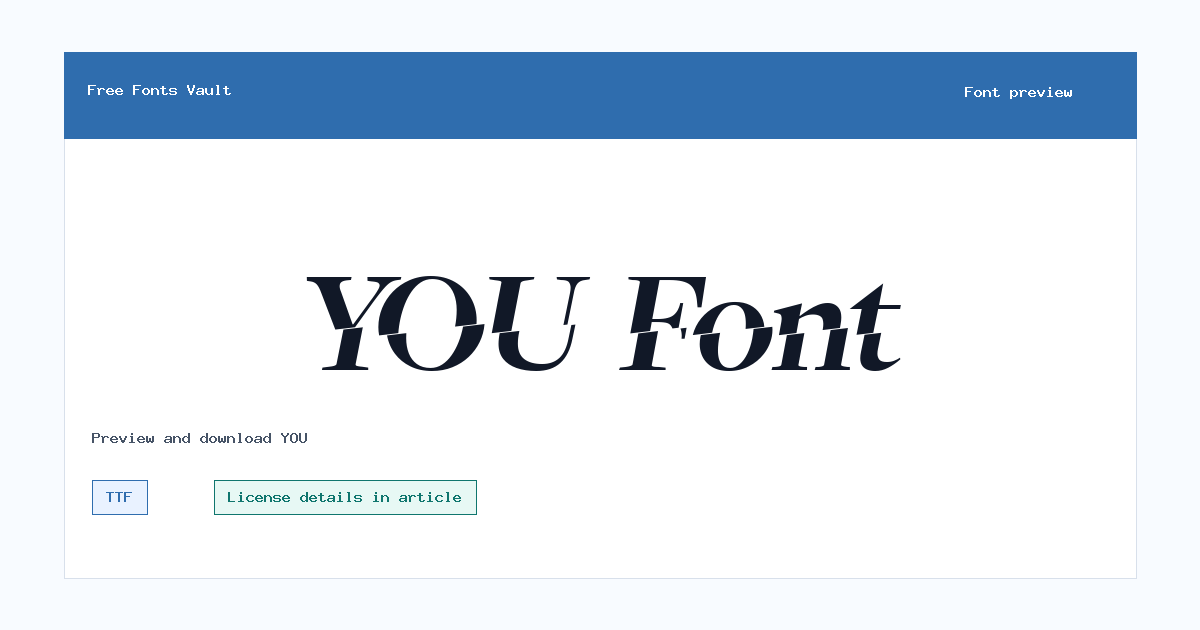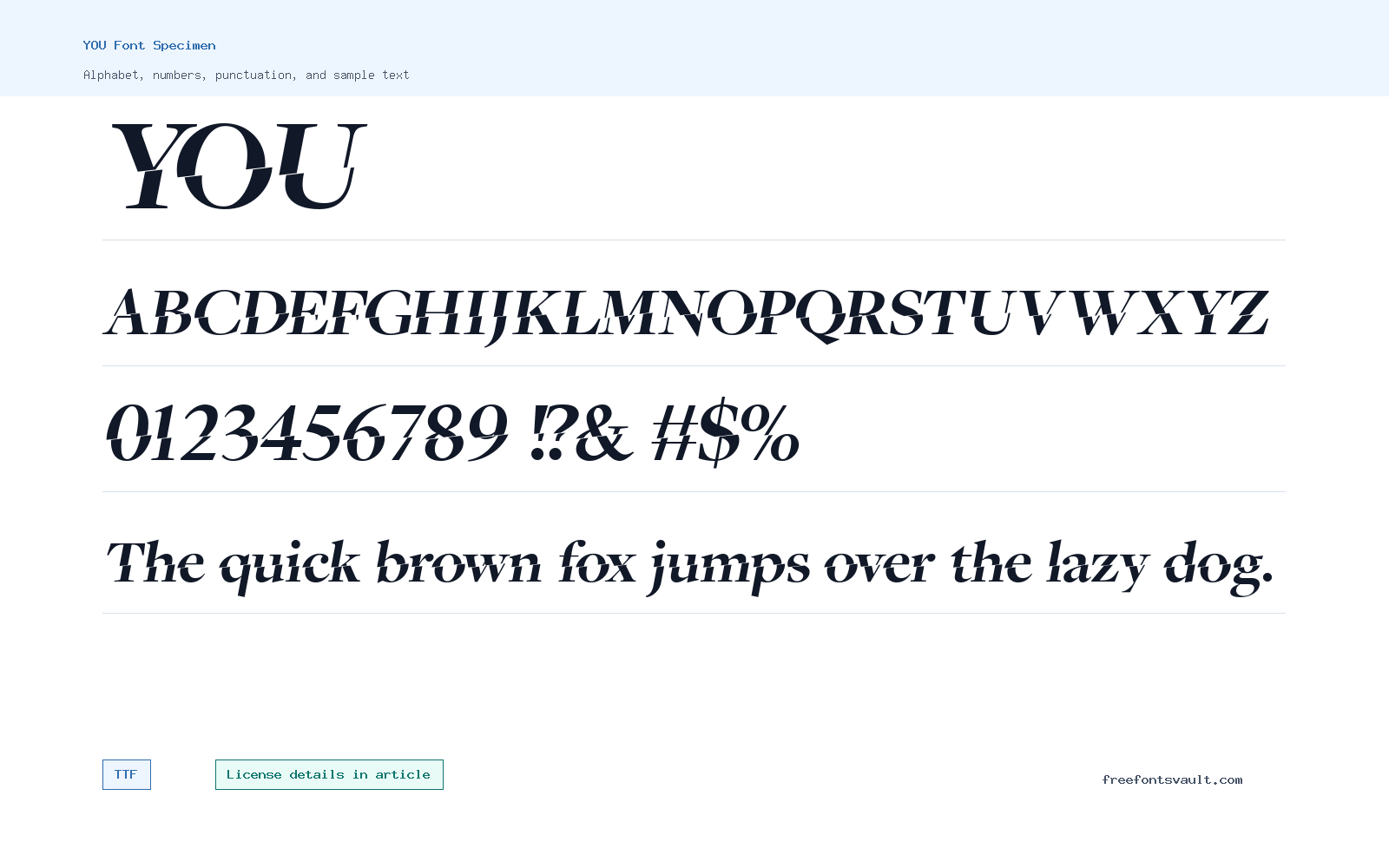
YOU
YOU font.
YOU is a single-style TTF font listed with a regular weight and normal style. The name is short, so the best way to judge it is to preview your own words and see how the letters behave in context.
About YOU Font
YOU is a straightforward download for visitors who want to test a simple font quickly. Since only one regular style is listed, it is best used in projects where a consistent single look is enough. Try it for names, short headings, simple labels, quote graphics, personal mockups, and other small design experiments where you can check the exact words before using the file.
- Good candidate for short headings, names, labels, and personal mockups
- Short headings, names, and simple display text
- Personal graphics, mockups, and quick typography tests
- Quote images, labels, and small design accents
- Layouts where one consistent regular style is enough
What should I use YOU for?
Try it for short headings, names, labels, quote graphics, and personal mockups where the exact wording can be previewed first.
What should I pair it with?
Use a readable serif or sans serif for longer copy, then keep YOU for the short display text.